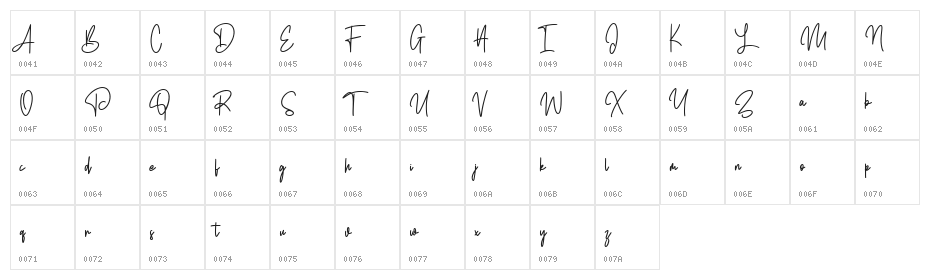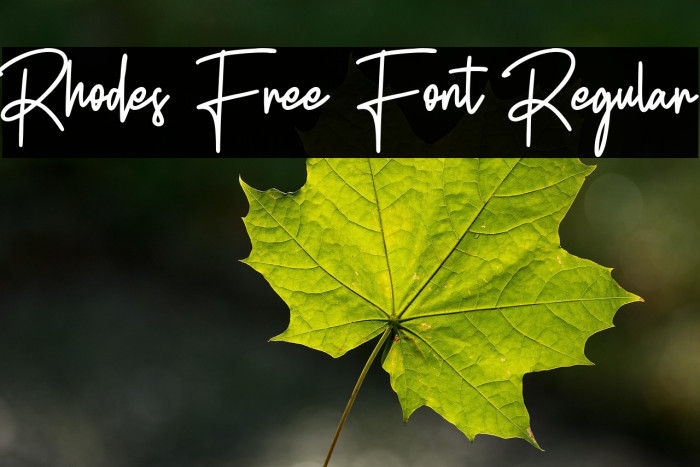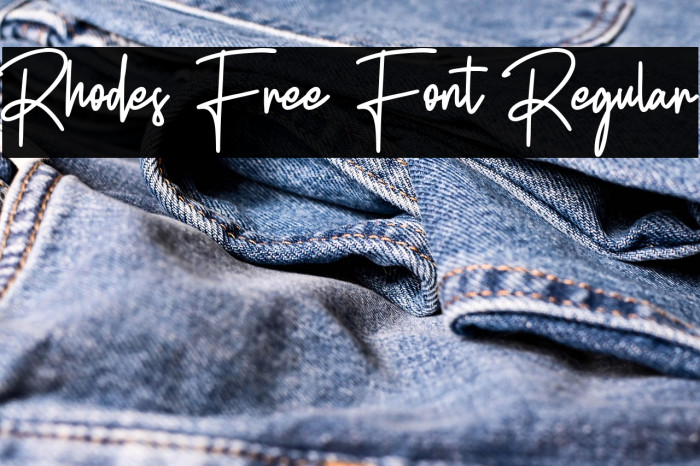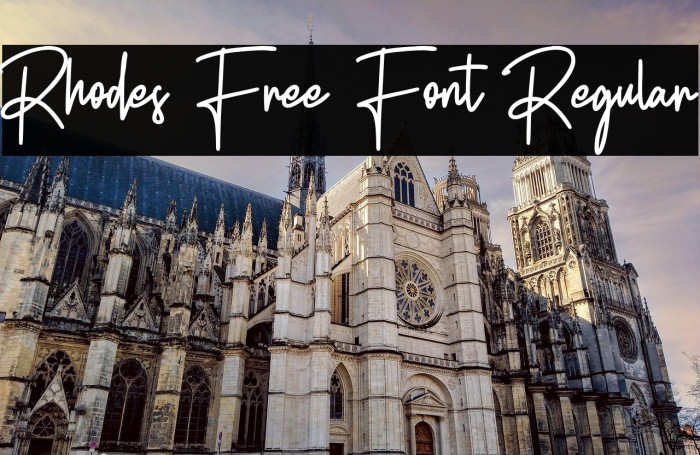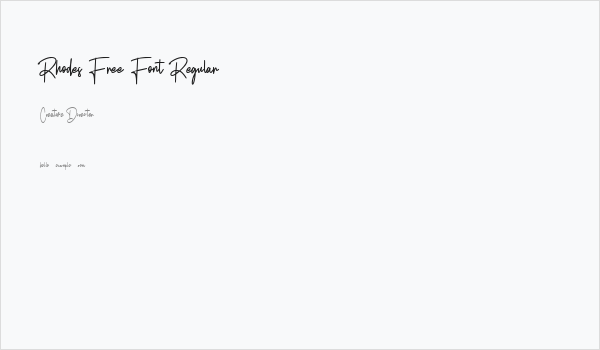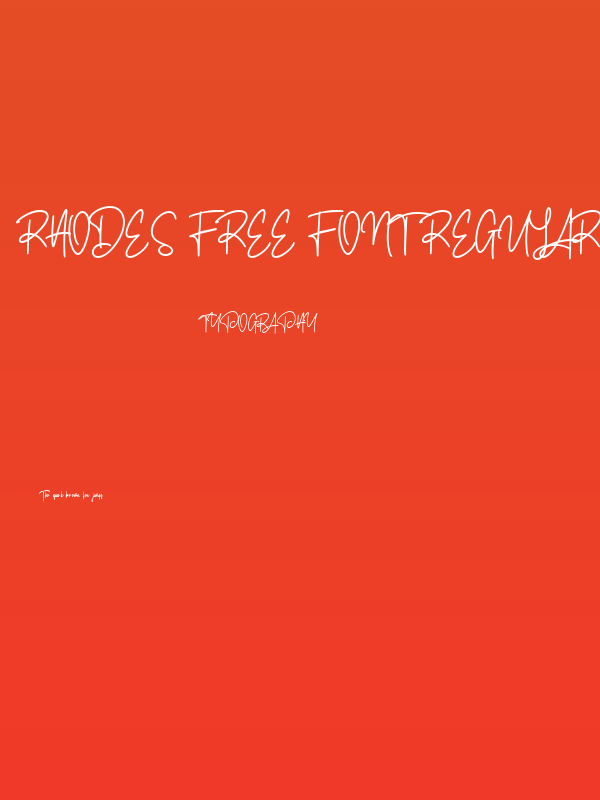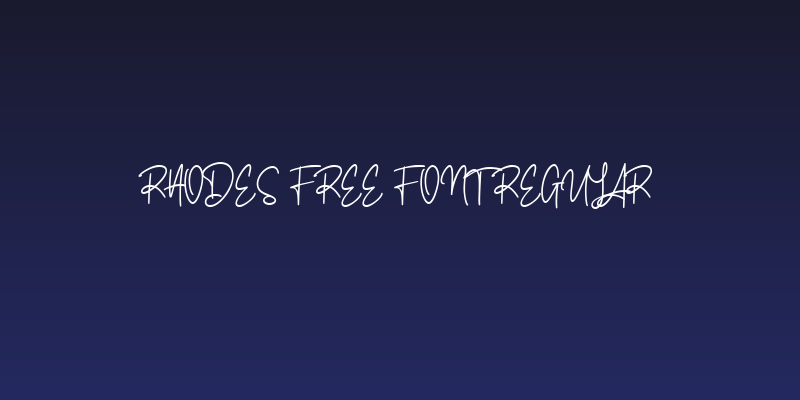
Rhodes Free Font Regular Font
Rhodes Free Font Regular Description
This font features a dynamic and expressive handwritten style, characterized by its flowing and interconnected letterforms. The uppercase letters are bold and sweeping, with a sense of movement and flair, while the lowercase letters maintain a consistent rhythm and elegance. The strokes are smooth and fluid, giving the font a lively and personal touch. The overall appearance is both modern and artistic, making it suitable for creative projects that require a personal and informal tone. The font's unique style is enhanced by its moderate contrast in stroke thickness, adding depth and interest to the characters.
| Proposed Projects | Ideal for invitations, greeting cards, branding, and social media graphics. |